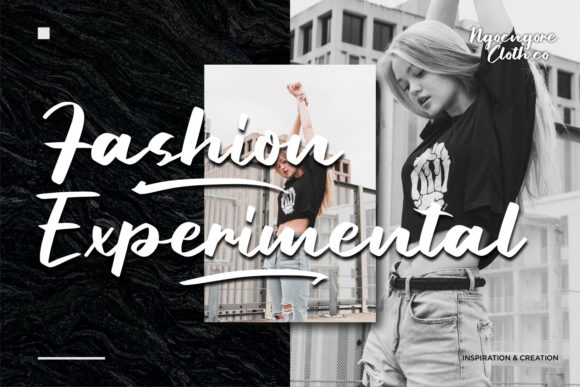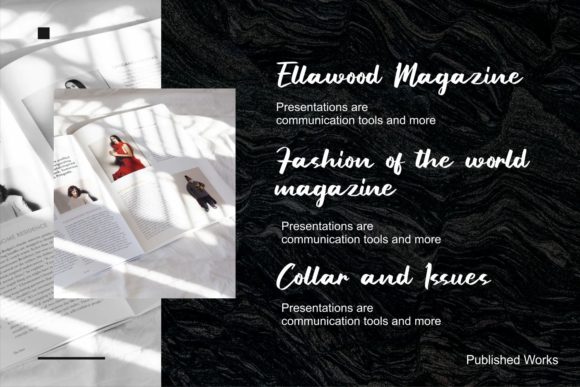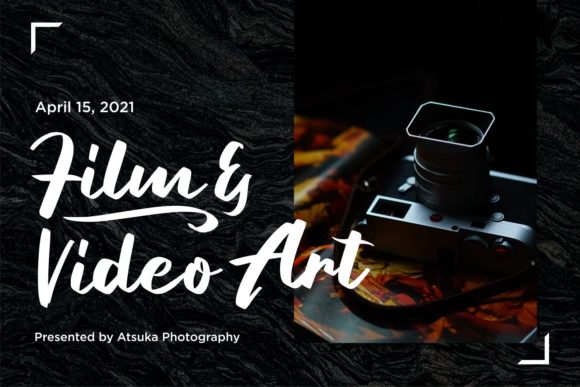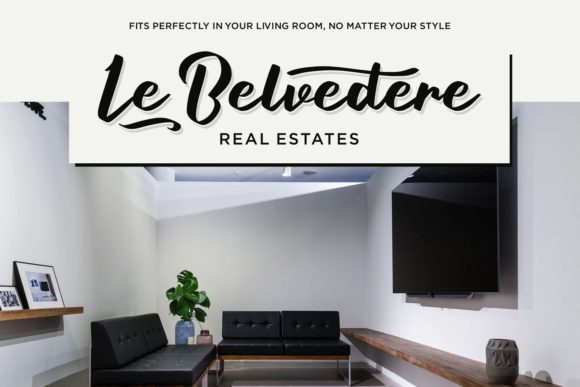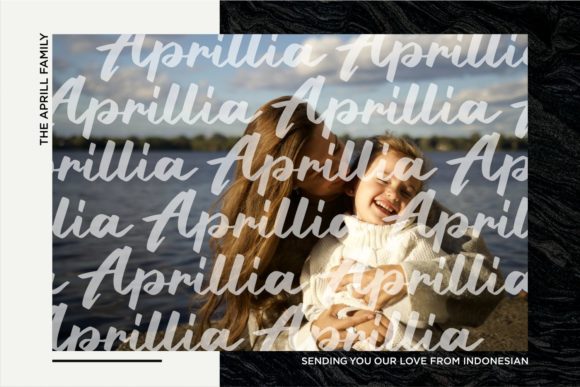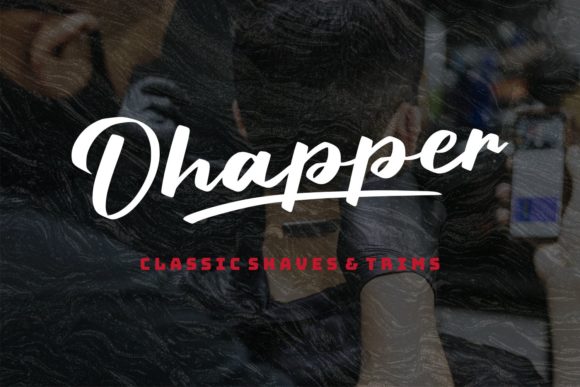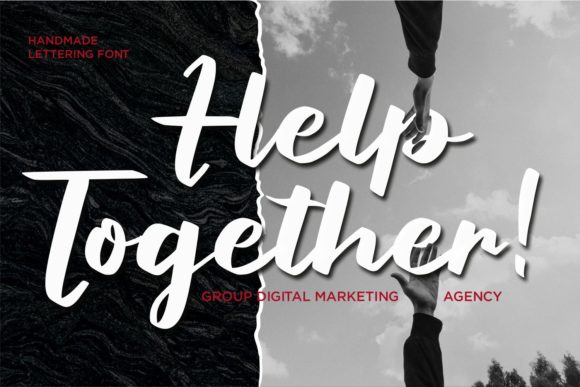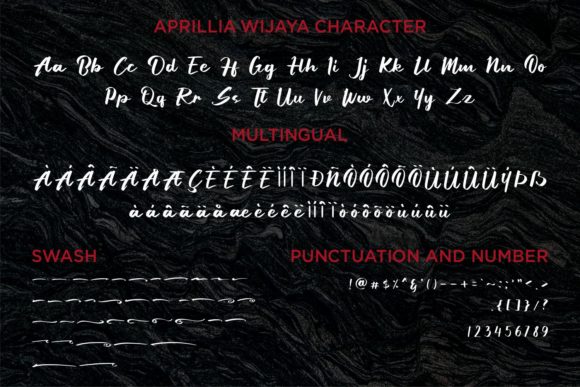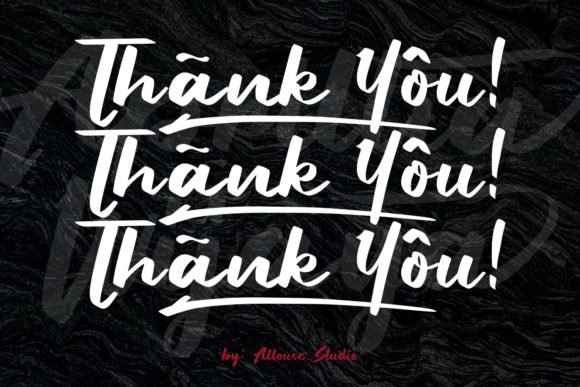
Aprillia Wijaya Font
About Aprillia Wijaya Font
Aprillia Wijaya is an incredibly beautiful and flowing handwritten font. Designed to become a true favorite, this font has the potential to bring each of your creative ideas to the highest level!